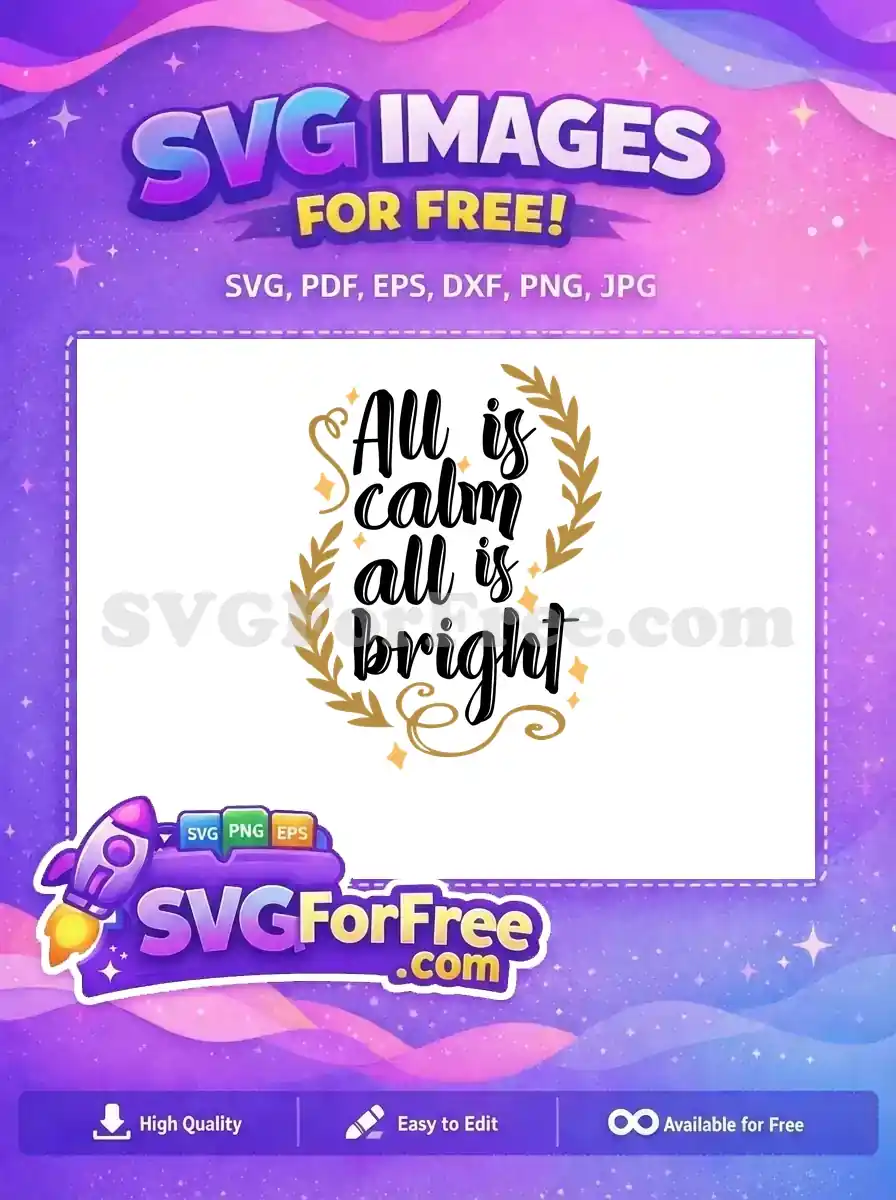
Free Black Script Font Free Gold Leafy Wreath Christmas Quotes Free SVG – Instant Download
Download this beautiful free design! A comforting ‘All is calm all is bright’ quote, perfect for your festive projects.
Free Black Script Font Free Gold Leafy Wreath Christmas Quotes Free SVG